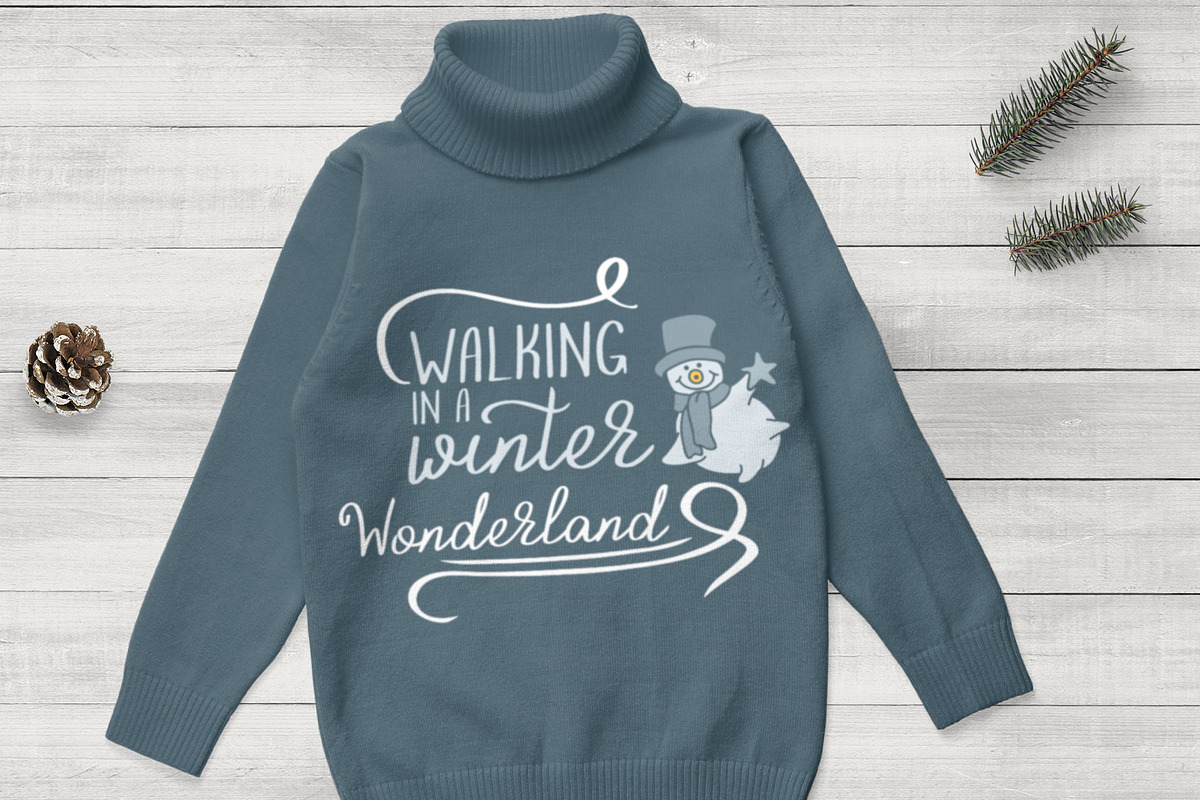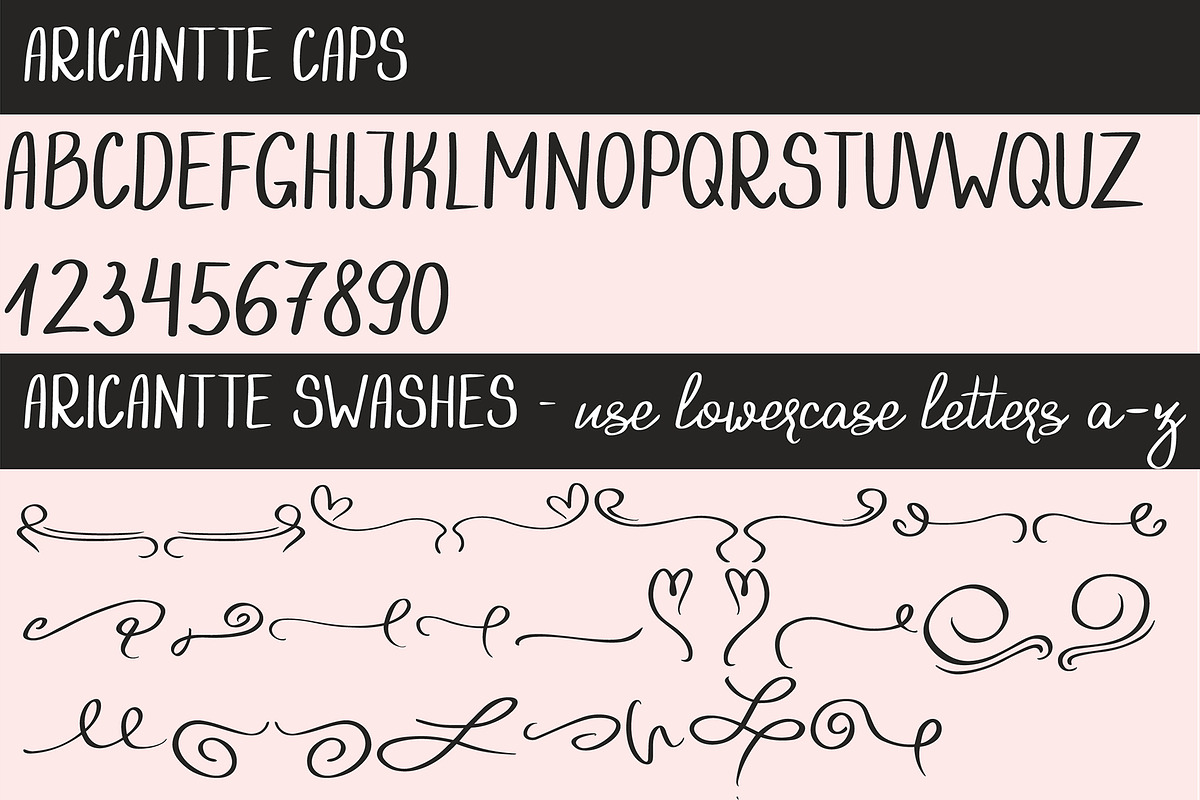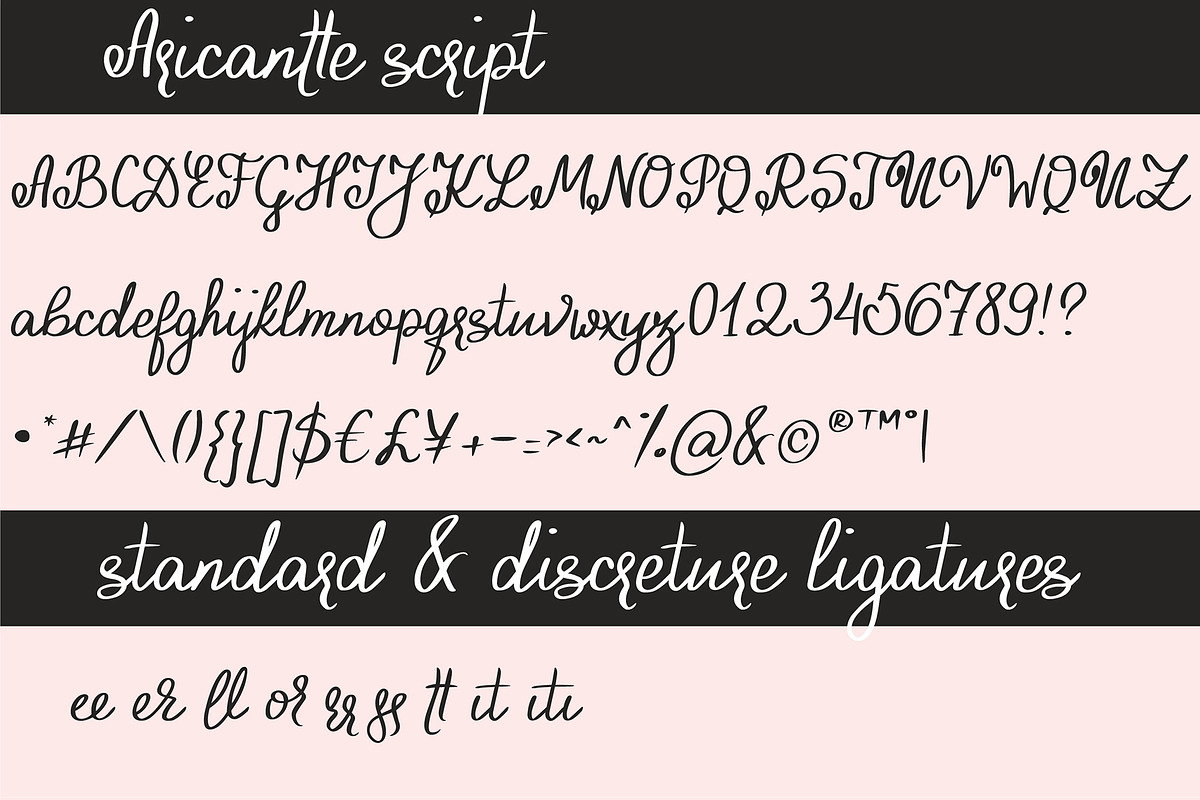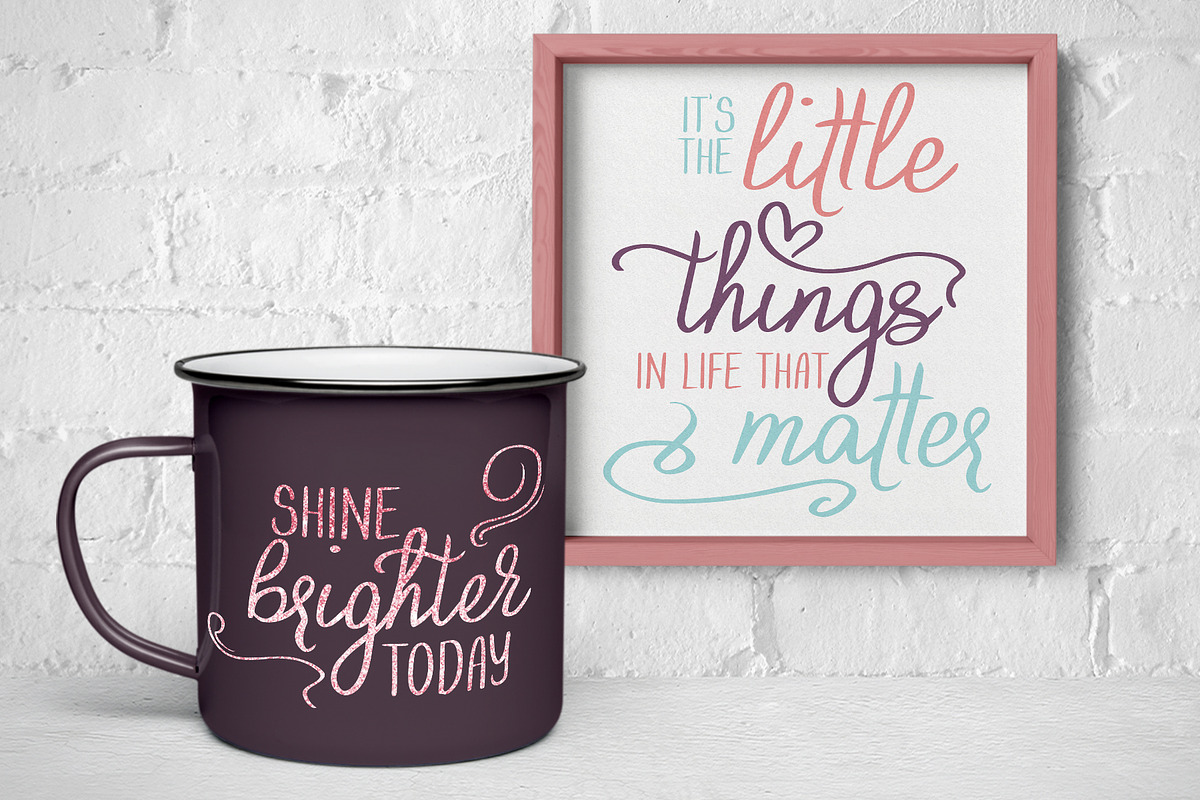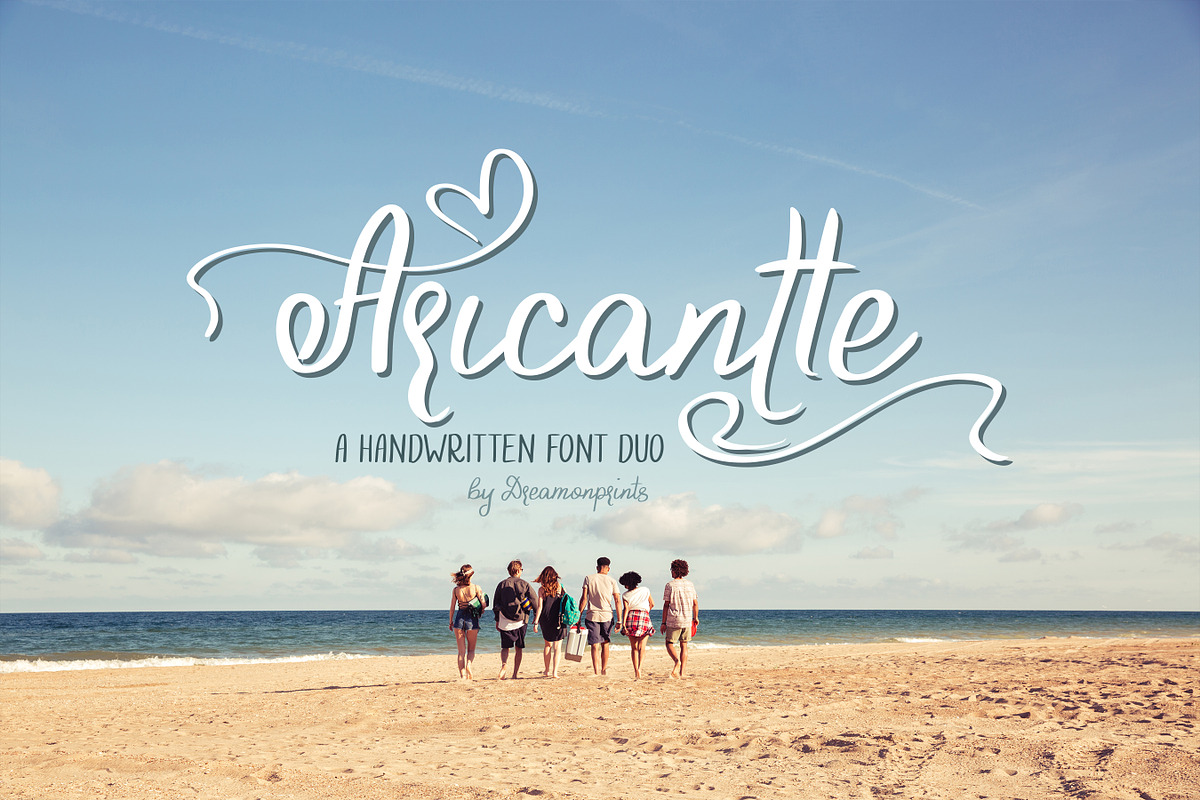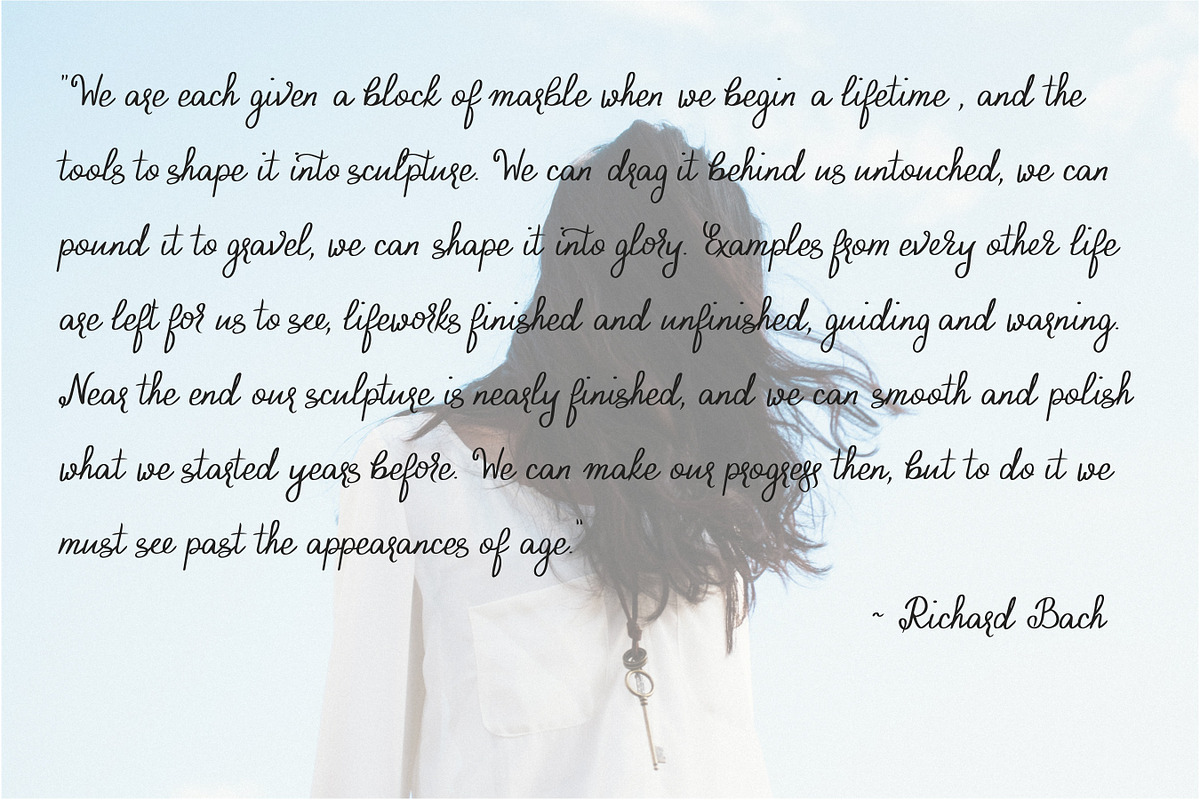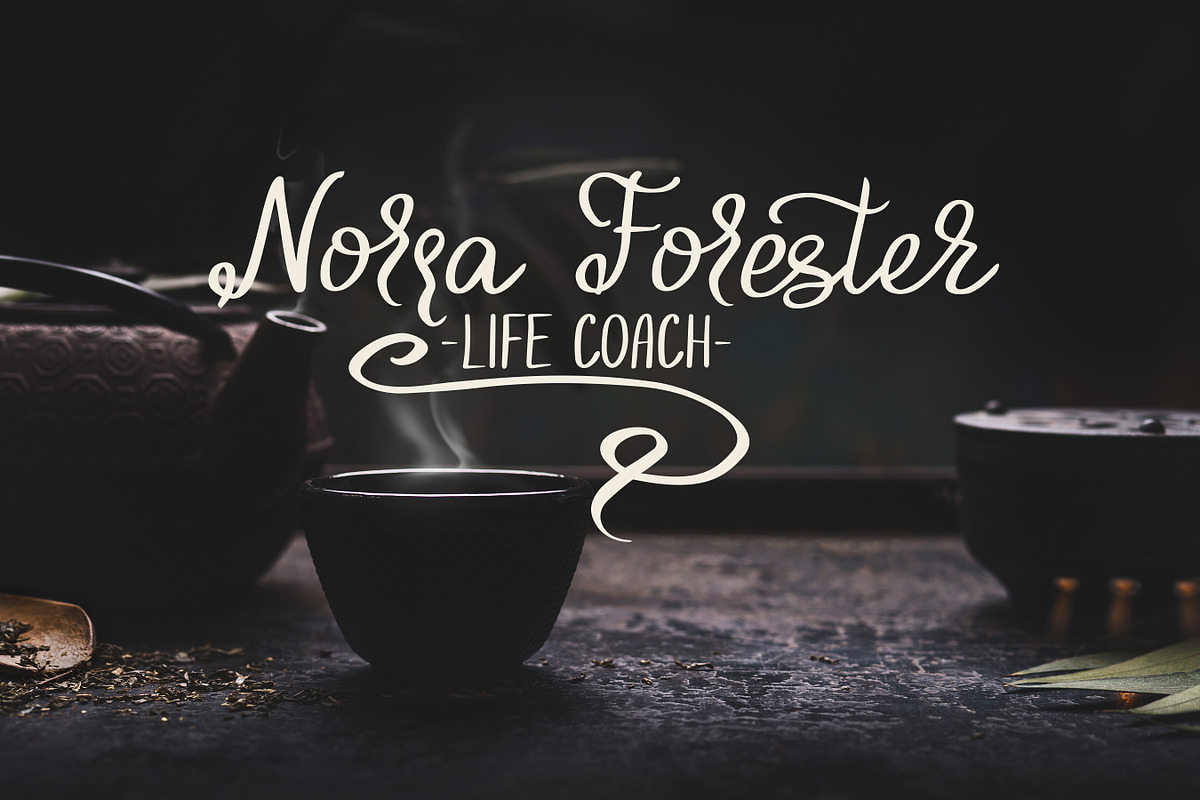
Aricantte - Handwritten Font Duo
Aricante is a hand drawn font duo - a script and all caps fonts with beautiful swirls.
Perfect for greeting cards, branding, stationery design, social media, packaging, magazine layouts, prints and many more!
Script and Caps & Swirls are part of the Aricante font duo. To access the swirls - use lowercase letters from Aricante Caps & Swirls